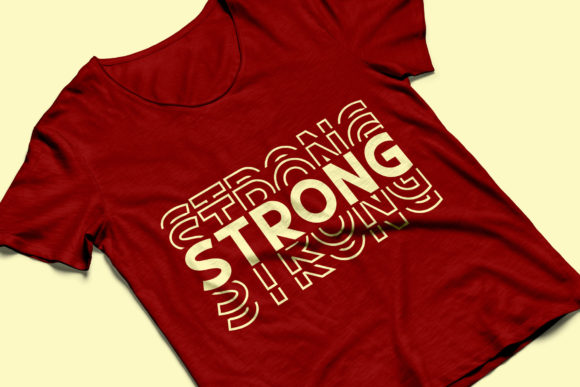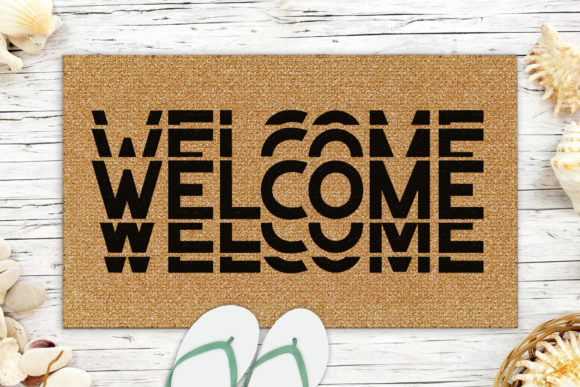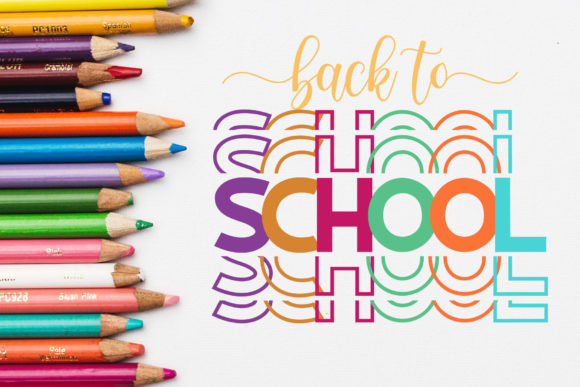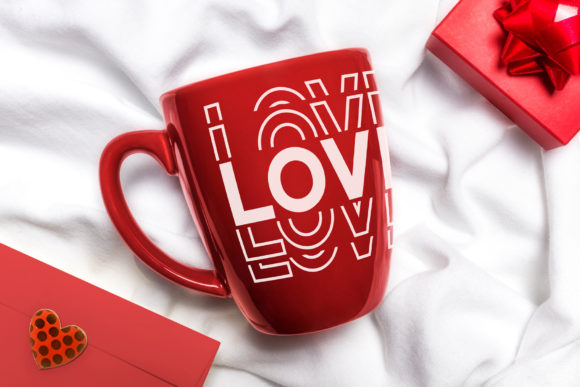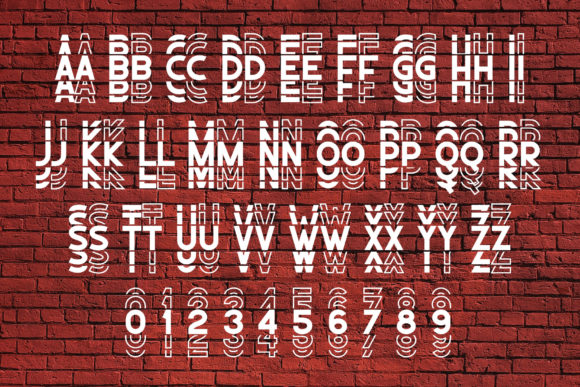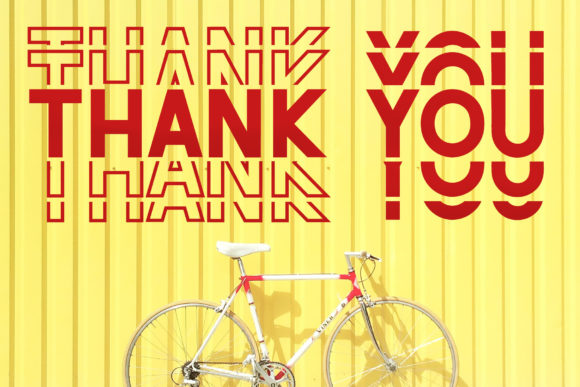
The Perfect Brick for Your Design
Remember that moment when you’re brainstorming ideas for a new project and everything just clicks into place? You envision the perfect combination of colors, textures, and typography that sets your design apart. For many designers, this moment is made possible by the right font. Enter the Brick Font, a cool and bold display font that’s perfect for any project that needs a statement piece.
Brick Font is designed to be versatile and eye-catching, making it ideal for shirt designs, logos, crafting, stickers, sublimation, signs, and more. Its bold and cool aesthetic gives any design a professional yet playful touch that’s sure to grab attention. As a designer, you’ll appreciate the value of having a font that can elevate your work and make it stand out in a crowded market.
Brick Font Key Features
- Font Family: Brick Font is a sans-serif font family designed for use in digital and print media.
- Character Set: Supports a wide range of languages, including Latin, Cyrillic, and Greek alphabets, making it suitable for international typography.
- Unique Characteristics: Brick Font features a distinctive, geometric design with clean lines and a modern aesthetic, making it ideal for use in branding, signage, and digital interfaces.
Designer Review: Brick Font
Brick Font has some great features that make it a solid choice for certain design projects. ✨ Its bold and chunky design gives it a unique look that’s perfect for headings and titles. The font is also highly customizable, with a wide range of sizes and styles available. This makes it easy to use Brick Font in a variety of contexts, from signage to digital displays.
One of the things that I appreciate about Brick Font is its versatility. ✨ It works well in both digital and print formats, and its design is bold enough to stand out in crowded spaces. The font is also highly legible, making it a great choice for long blocks of text.
While Brick Font has many strengths, it’s not without its limitations. ⚠️ One of the main issues I have with the font is its lack of subtlety. The bold design can be overwhelming in certain contexts, and it may not be the best choice for projects where a more delicate look is desired.
In general, I think Brick Font is a solid choice for designers who need a bold and eye-catching font. While it may not be suitable for every project, it’s a great option for those who need a font that can really grab attention. With a little bit of creative planning, Brick Font can be a real asset in your design toolkit.
- Unique, bold design
- Works well in both digital and print formats
- Legible and easy to read
- May be overwhelming in certain contexts
Tips for Getting the Most Out of Brick Font
For optimal results, use Brick Font on a background with a high level of contrast. This will help the font stand out and make it easier to read. You can also experiment with different font sizes and styles to create a unique visual effect.
Brick Font is commonly used in graphic design, signage, and advertising. It’s particularly effective for creating bold, eye-catching headlines and titles. You can also use it to add a nostalgic or retro feel to your designs.